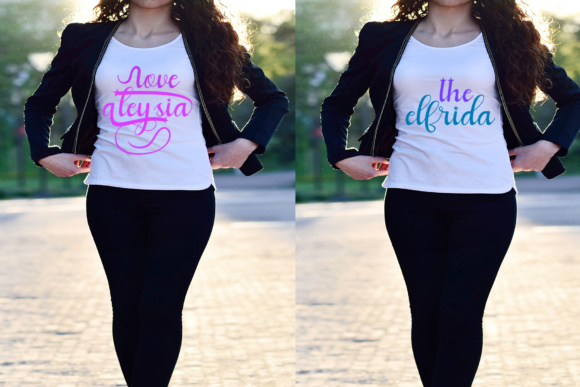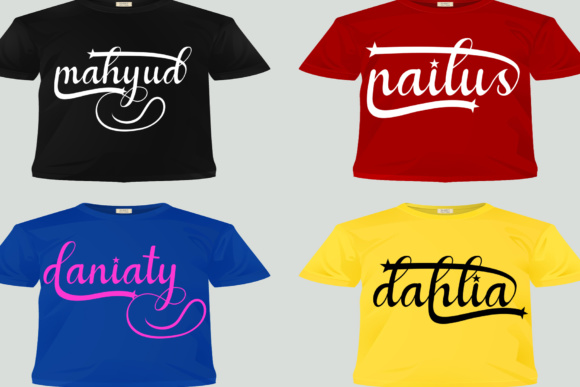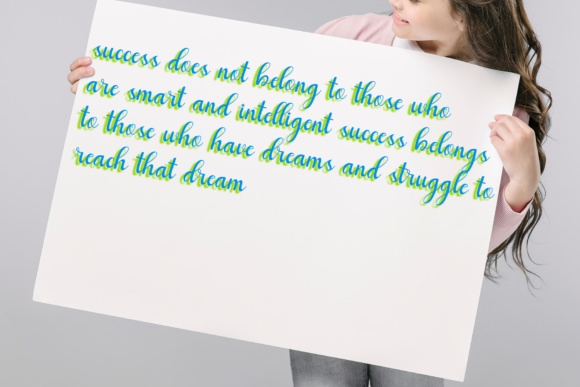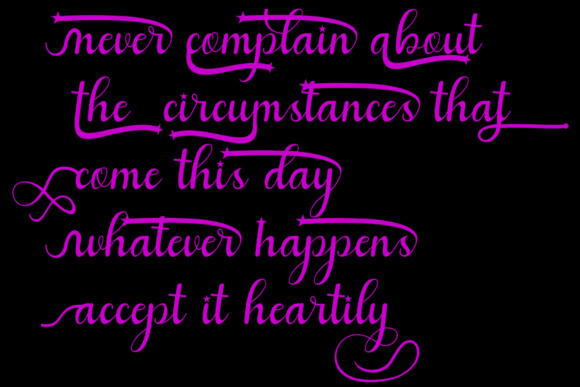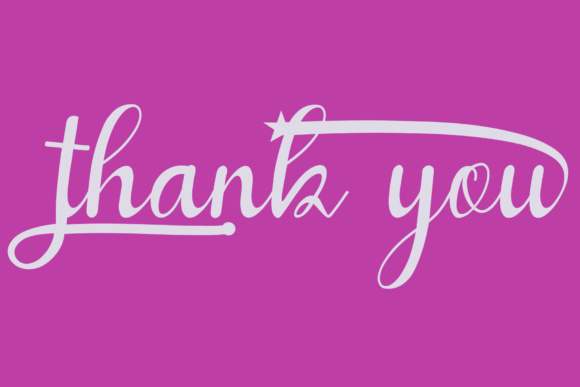
The Perfect Brushstroke: Unlocking the Power of Dahlia Font
Do you ever find yourself scribbling notes in the margins of your sketchbook, trying to capture the perfect phrase or quote? The feeling of putting pen to paper, watching your words come to life in a beautiful, handwritten script – it’s a moment of pure creativity. And for designers, that feeling is exactly what the Dahlia Font embodies.
As a modern calligraphy script font, Dahlia Font is designed to evoke the natural, flowing feel of handwriting. With its stunning decorations and elegant lines, this font is perfect for adding a touch of sophistication to any design project. Whether you’re creating a wedding invitation, a branding package, or a social media graphic, Dahlia Font is sure to bring a level of elegance and refinement that’s hard to find in other fonts.
Dahlia Font Key Features
- Font Family: Dahlia Font is a unique, hand-drawn script font designed to evoke a sense of elegance and sophistication.
- Character Set: The font includes a wide range of characters, including uppercase and lowercase letters, numbers, punctuation marks, and special characters.
- Unique Characteristics: Dahlia Font features a distinctive, flowing script style with subtle flourishes and connectors, giving it a personal and handwritten feel.
Dahlia Font Review
Overall, I think the Dahlia font has some great qualities, but it also has some limitations that might make it less desirable for certain projects.
Unique and elegant design: The Dahlia font has a beautiful, flowing design that sets it apart from more common fonts.
Wide range of styles: Dahlia comes in multiple styles, from bold and playful to delicate and refined, making it versatile for various design projects.
High-quality digital rendering: The font is well-crafted and rendered smoothly, ensuring that it looks great on a variety of screens and devices.
Limited legibility: At small font sizes, the Dahlia font can become difficult to read due to its intricate details and lack of clear definition between letters.
Overuse potential: The font’s unique design might make it prone to overuse, leading to a lack of visual interest and cohesion in a design.
Overall, I think the Dahlia font is a great addition to any design library, but it’s essential to use it thoughtfully and in the right context to maximize its impact.
Tips for Getting the Most Out of Dahlia Font
Here are some tips to help you get the most out of Dahlia Font:
- Use Dahlia Font for titles and headings to add a touch of elegance.
- Pair Dahlia Font with other elegant fonts for a sophisticated look.
- Experiment with different font sizes and colors to add visual interest.
Dahlia Font is ideal for:
- Formal event invitations.
- High-end branding and marketing materials.
Alternatives to Dahlia Font
Playfair Display is a luxurious, high-end serif font perfect for creating elegant and sophisticated designs. It features intricate details and ornate flourishes, making it ideal for invitations, wedding designs, and high-end branding.
Compared to Dahlia Font, Playfair Display has a more refined and classic look, whereas Dahlia Font has a more playful and whimsical feel. Playfair Display is better suited for formal designs, while Dahlia Font is more versatile and can be used for a variety of projects.
Great Vibes is a modern, elegant script font that exudes sophistication and luxury. It features flowing lines and beautiful connections between letters, making it perfect for creating eye-catching titles and headings.
Compared to Dahlia Font, Great Vibes has a more refined and polished look, whereas Dahlia Font has a more playful and casual feel. Great Vibes is better suited for high-end branding, packaging, and advertising designs, while Dahlia Font is more versatile and can be used for a variety of projects.